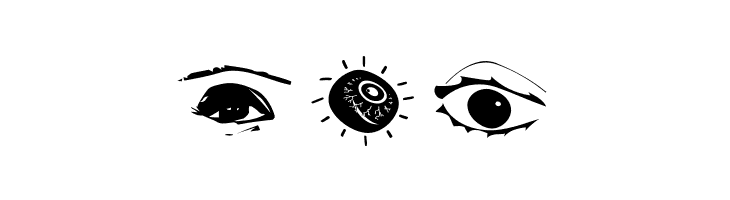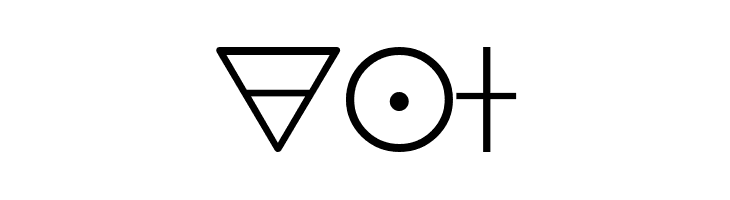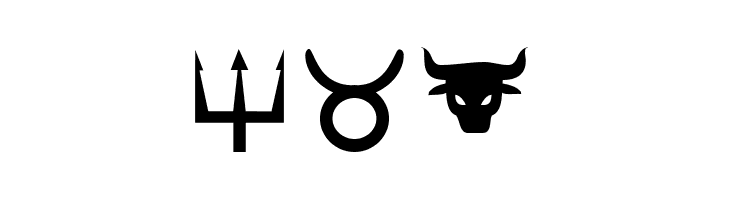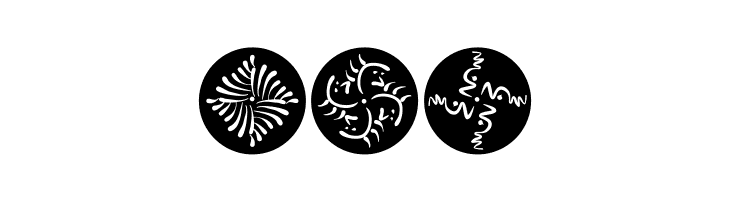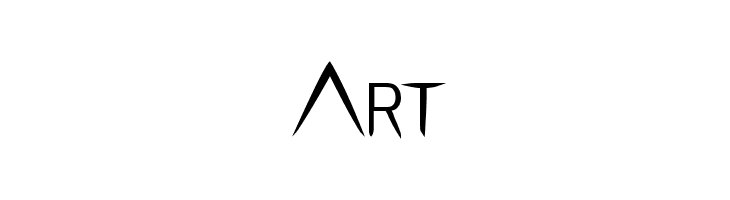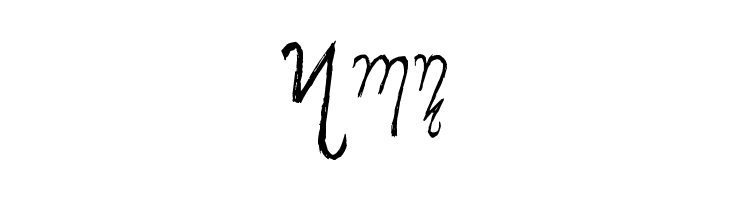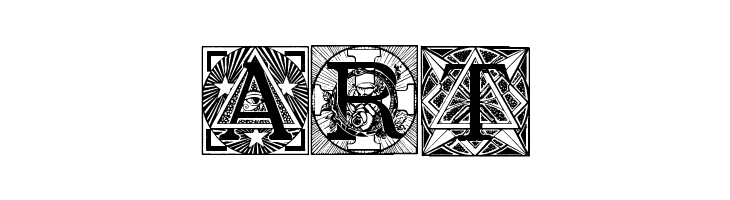
A decorative, hand-drawn set of expressive eye illustrations.
A decorative symbol font blending Celtic, astrological, and mythological imagery.
A decorative set of astrological and astronomical symbols with a modern twist.
Abstract, hand-drawn circular symbols with intricate white linework.
A mystical and decorative font with intricate curves and sharp angles.
A mystical, angular font with geometric and rune-like elements.
A decorative and abstract font with an ancient, symbolic style.
An intricate, decorative font with Masonic-inspired designs and bold, artistic letters.